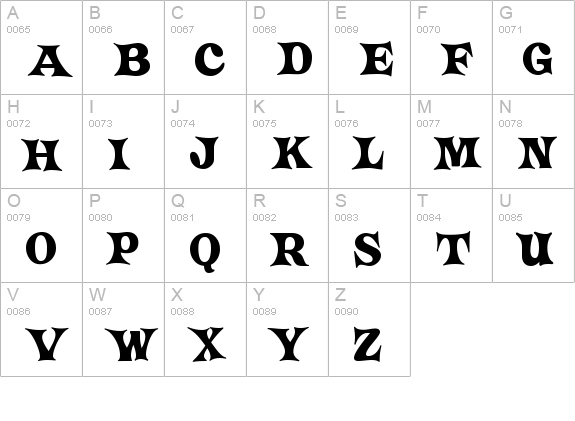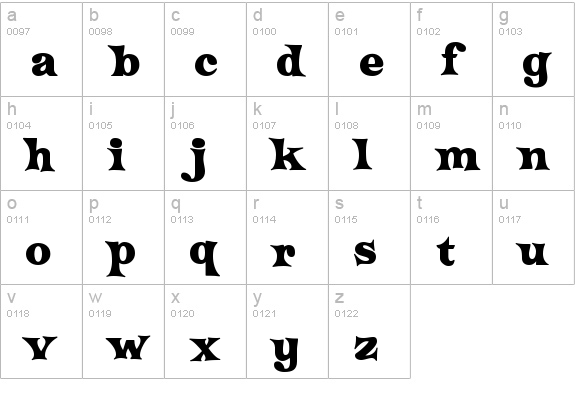
Crazy Harold Font Details
Crazy Harold font is a whimsical and energetic typeface that exudes a playful charm. Its quirky and unconventional design makes it perfect for adding a touch of fun to any project. With its bold strokes and unique character shapes, Crazy Harold font is sure to grab attention and make a statement. Whether you're designing a poster, logo, or any other creative project, this font will bring a sense of creativity and originality. The best part? Crazy Harold font is available for free download at FontsMarket.com. Simply head over to the website and grab this delightful font to add a dash of craziness to your designs. Don't miss out on this fantastic opportunity to enhance your projects with the lively and free-spirited Crazy Harold font.